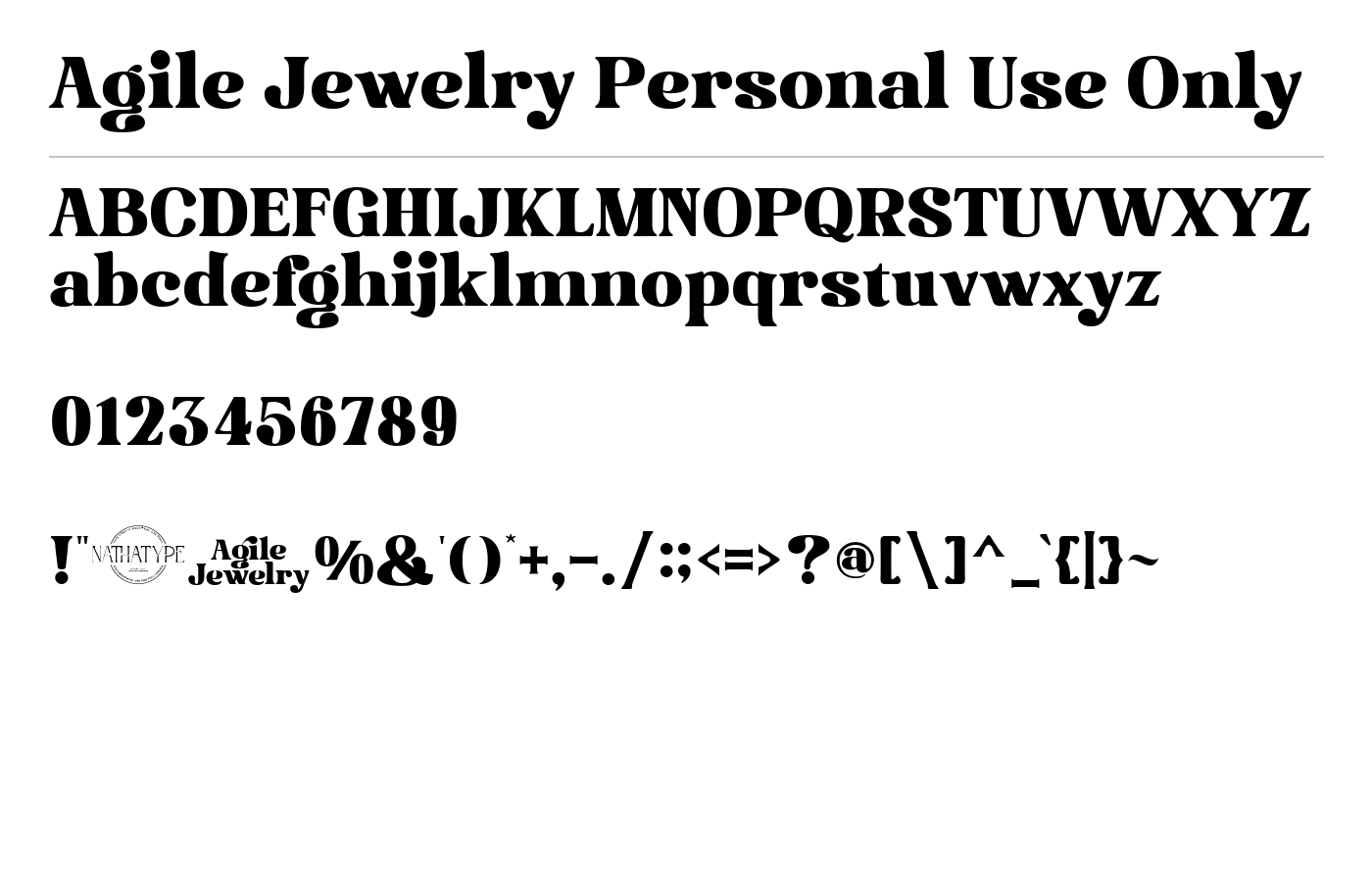
Agile Jewelry Personal Use Only is a bold, slab serif font with a strong presence and high contrast between thick and thin strokes, giving it a classic yet modern feel. Its rounded serifs and slightly condensed letterforms create a friendly and approachable look, making it well-suited for logos, headlines, and branding that require a touch of elegance with a playful edge. This font works beautifully in fashion, editorial, and packaging design where sophistication and personality are key.
Agile Jewelry Personal Use Only Font
About Agile Jewelry Personal Use Only Font
| Font family | Agile Jewelry Personal Use Only Font |
| Trademark | Nathatype |